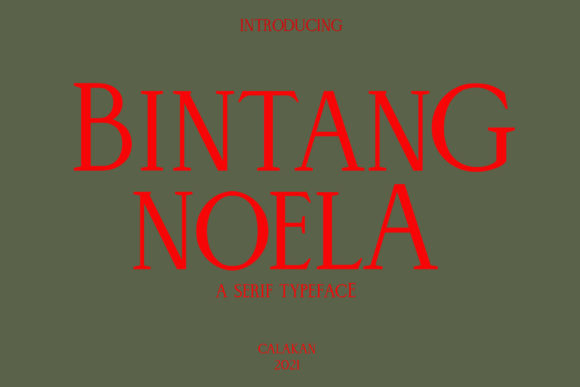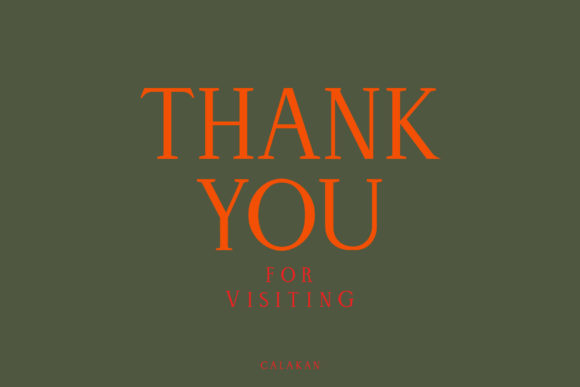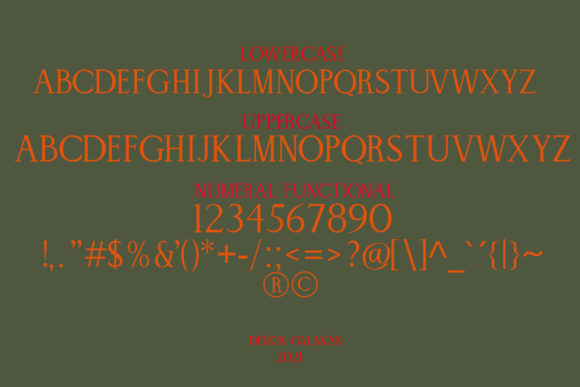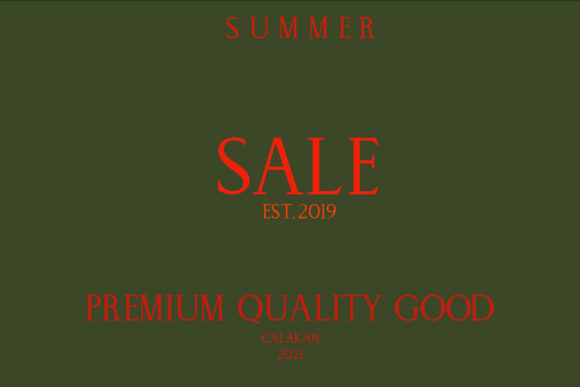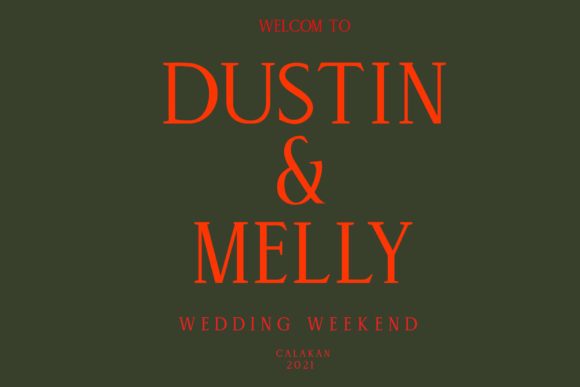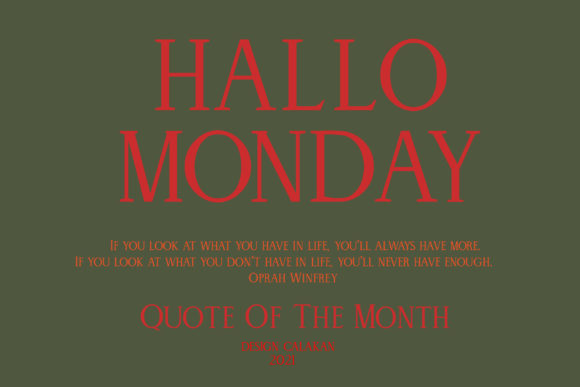
HomePersonal Use FreeBintang Noela Personal Use Free Bintang Noela FacebookTwitterPinterestWhatsApp 1 of 6 About Bintang Noela Font Bintang Noela is a bold, tall and elegant serif font. Add this imposing font to your library, and employ it to your most favorite creations. DOWNLOAD NOW People also explored Ericka Font Play Austrilia Font Scriptafela Font Sherlyn Font Neverlone Font Good Show Font Rockhead Font Notes December Font Flores Del Sol Font 158 0 TagsBintang Noela Font Previous articleRomantic FebruaryNext articleWadjet LEAVE A REPLY Cancel reply Comment: Please enter your comment! Name:* Please enter your name here Email:* You have entered an incorrect email address! Please enter your email address here Website: Save my name, email, and website in this browser for the next time I comment. Personal Use Free Bright Dreams Personal Use Free Read more about this font Geracella Personal Use Free Read more about this font Rasiday Personal Use Free Read more about this font Hello, How Are You? Personal Use Free Read more about this font BLOG Top 7 Google Fonts Alternatives for Faster and Privacy-Friendly Web Design (2025) Top 7 Google Fonts Alternatives for Faster and Privacy-Friendly Web Design (2025) When it comes to web typography, Google Fonts has long been the go-to... Exploring Font Trends Using Fonts in Digital Marketing: Tips to Strengthen Your Brand Identity Transform Your Website: Elevate Your Typography with 7 Best Web Font Generators